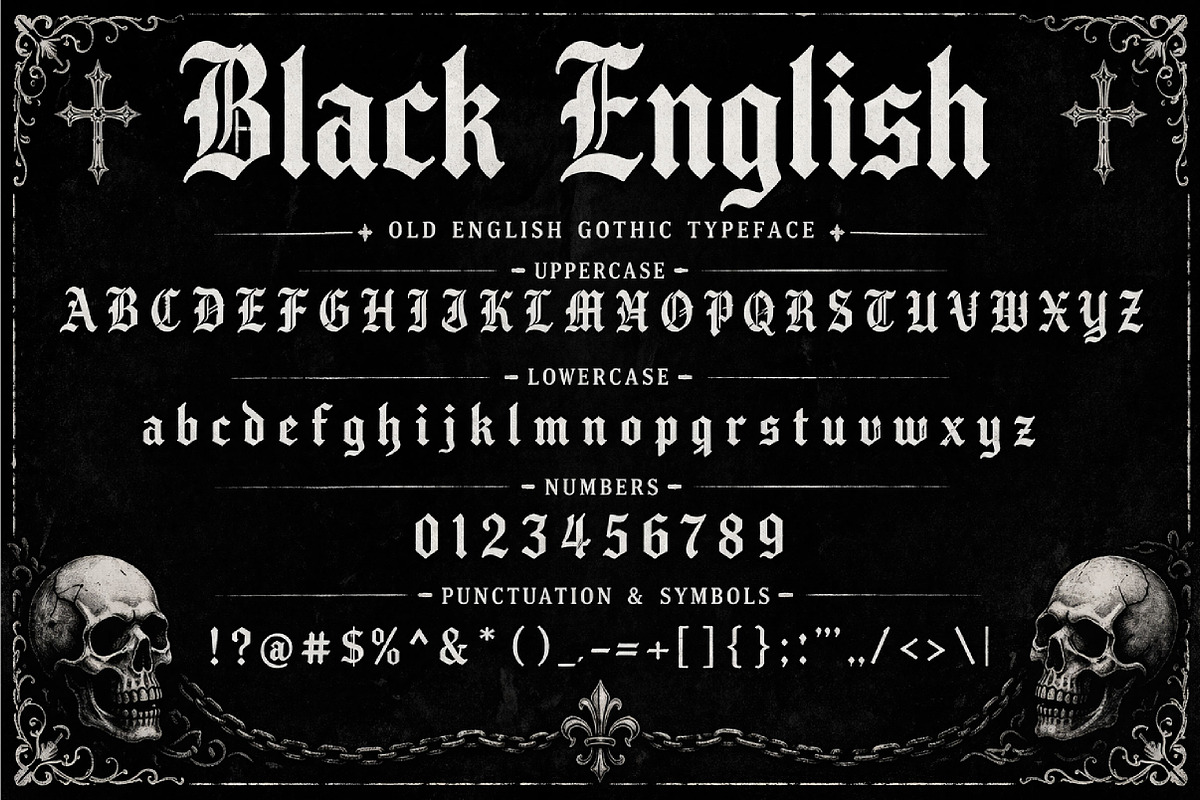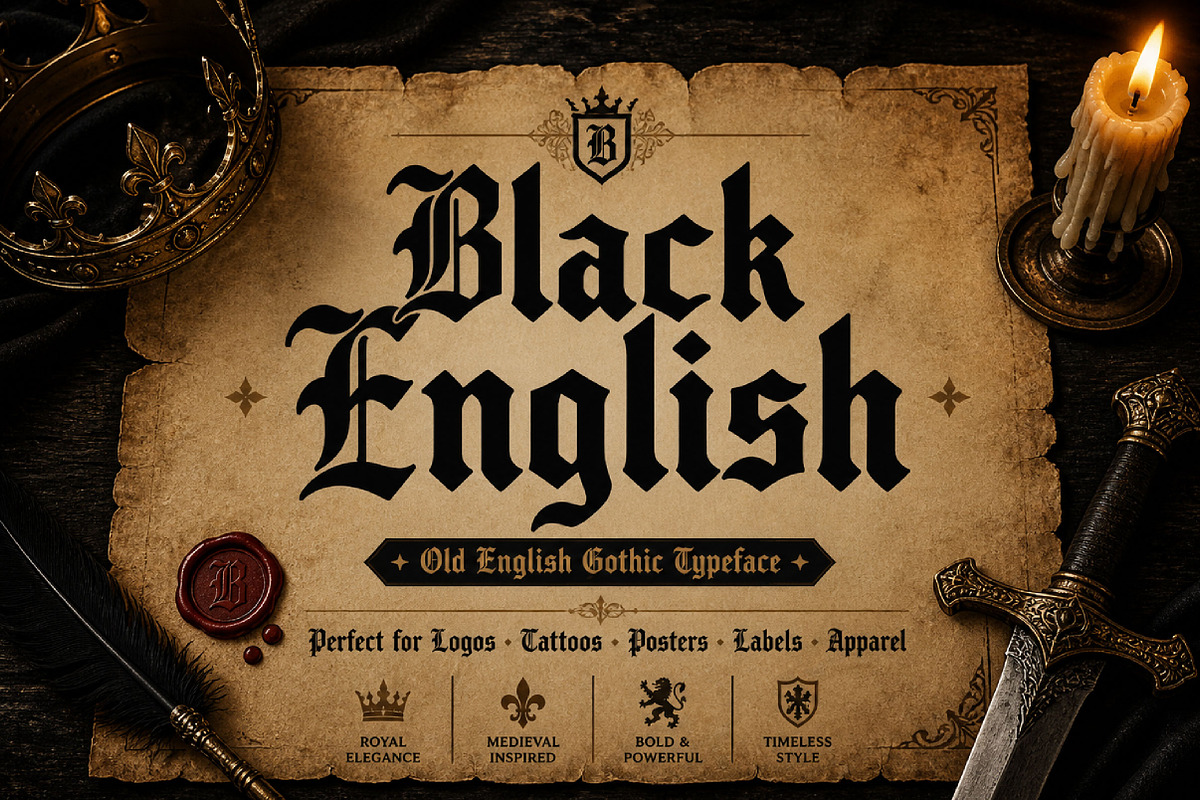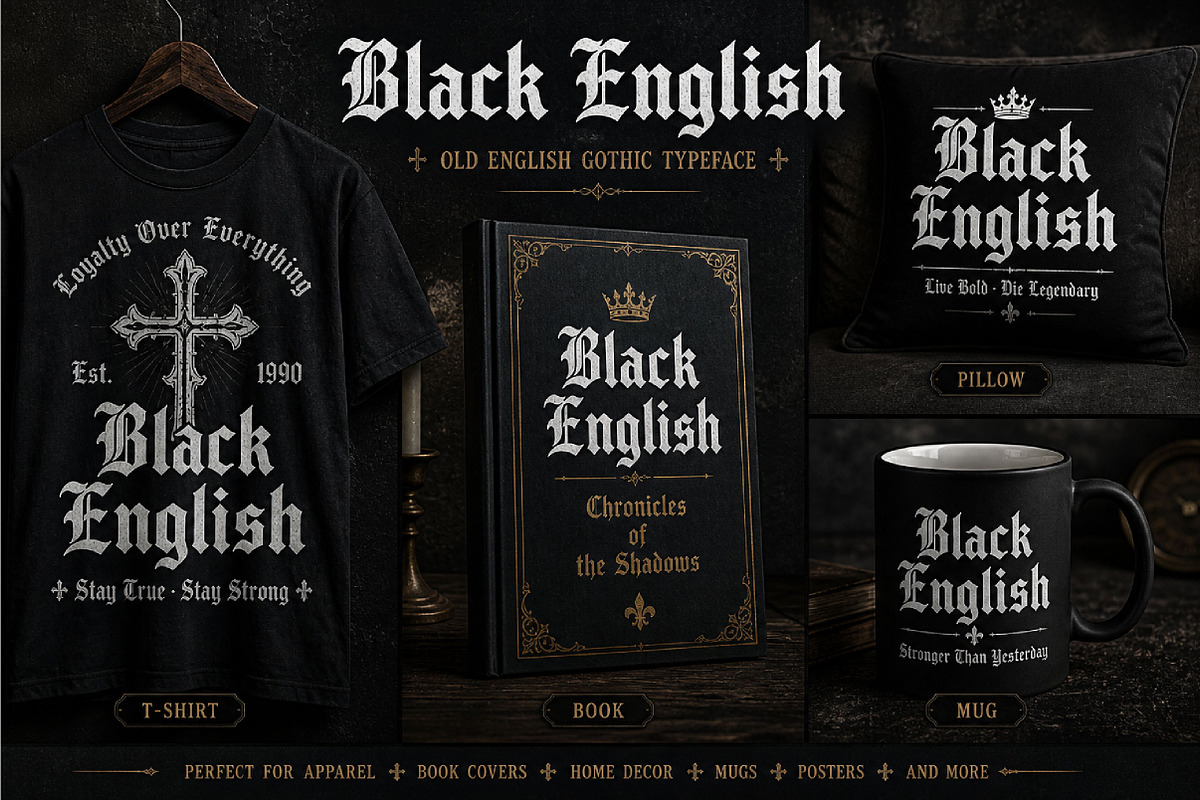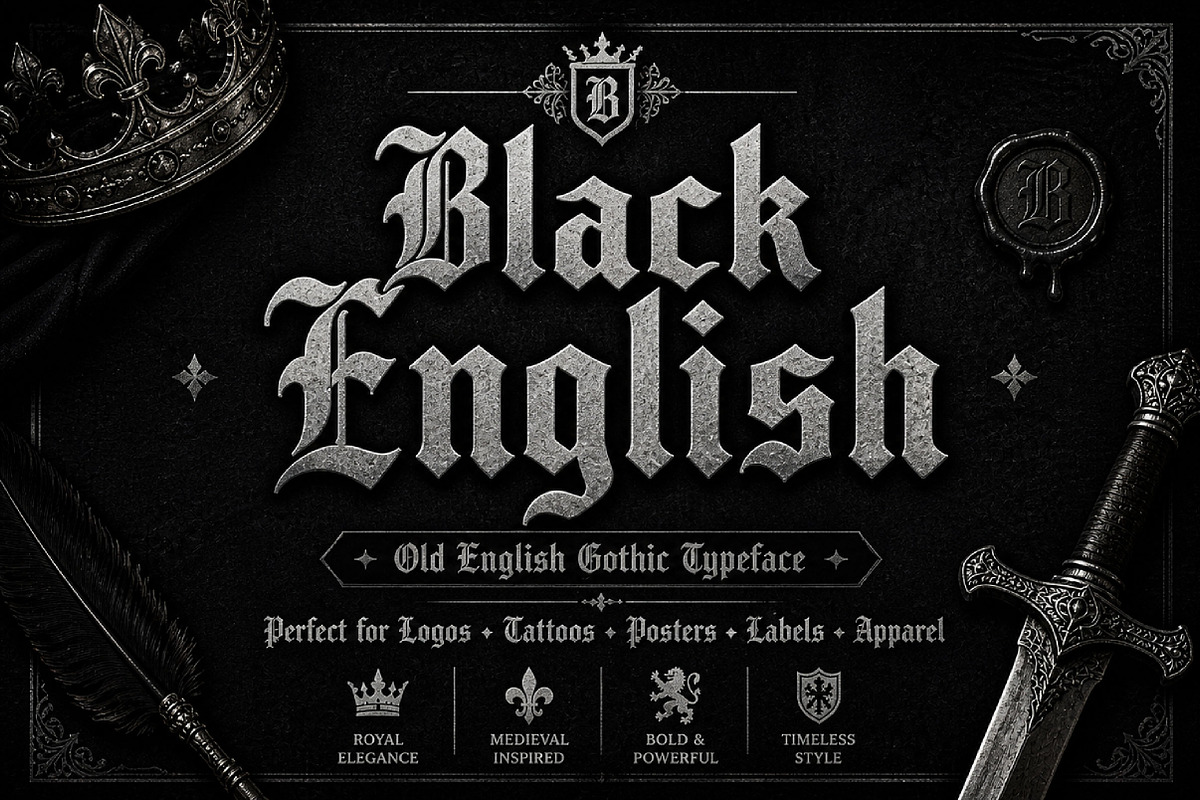
Black English
Black English – Classic Blackletter Gothic Font
Short Description
Black English is a bold, classic, and dramatic blackletter font, perfect for gothic designs, logos, posters, album covers, tattoos, branding, and vintage creative projects.
Full Description
Black English is a powerful blackletter display font inspired by traditional Old English and gothic typography. With its sharp strokes, ornamental details, and strong historical character, this font creates a bold and dramatic look that instantly stands out.
Its classic gothic style makes Black English perfect for projects that need a vintage, medieval, or dark artistic identity. Whether you are designing logos, posters, album covers, tattoo-style artwork, apparel, packaging, editorial headlines, or event graphics, this font helps your typography feel strong, elegant, and unforgettable.
Gothic and medieval designs
Old English typography
Logos and branding
Posters and headlines
Album covers
Tattoo-style graphics
Apparel and merchandise
Packaging design
Editorial titles
Statement typography
Uppercase letters
Lowercase letters
Classic blackletter style
Ornamental gothic details
Bold and dramatic appearance
Perfect for display use